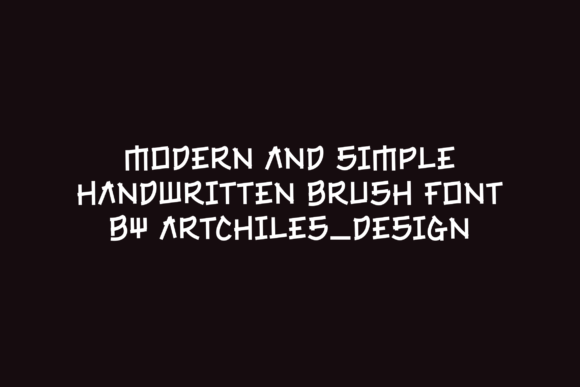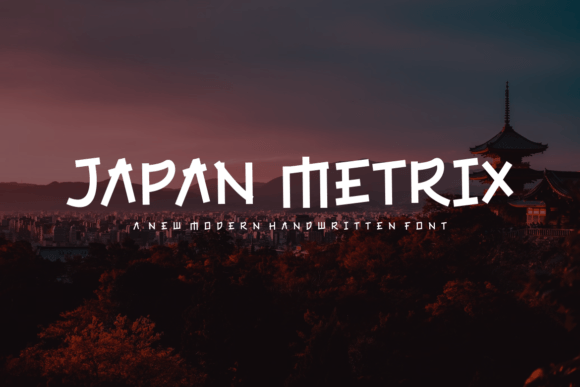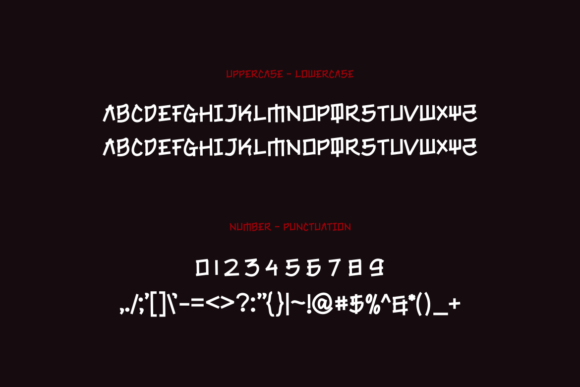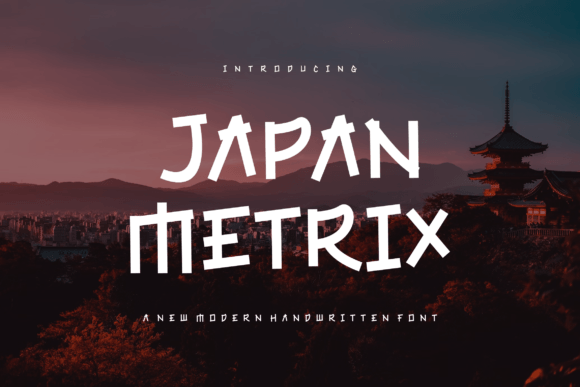
Introduction to Japan Metrix Font
Japan Metrix is a display font inspired by Japanese design.
It features bold, clean lines and shapes that give it a unique, modern look Perfect for making a strong impression in headlines and posters.